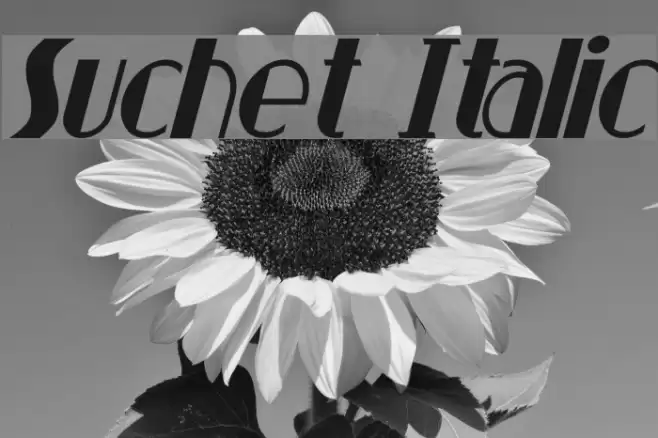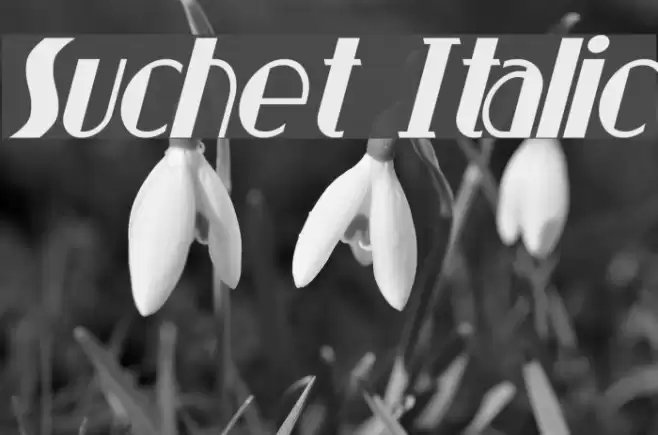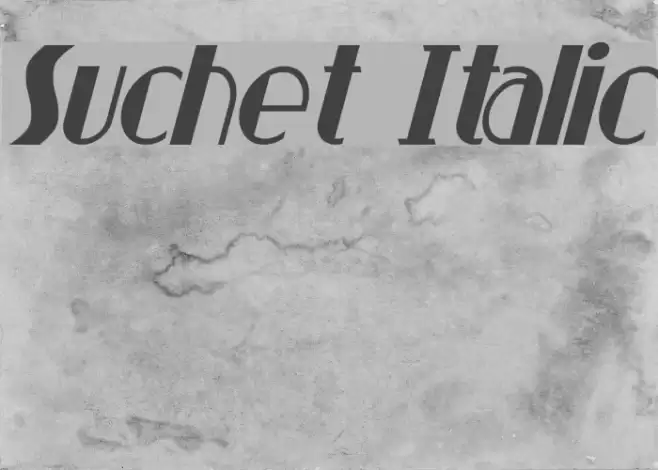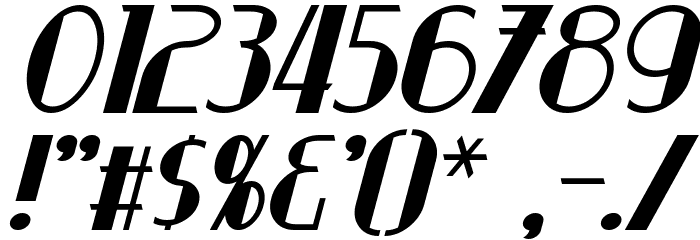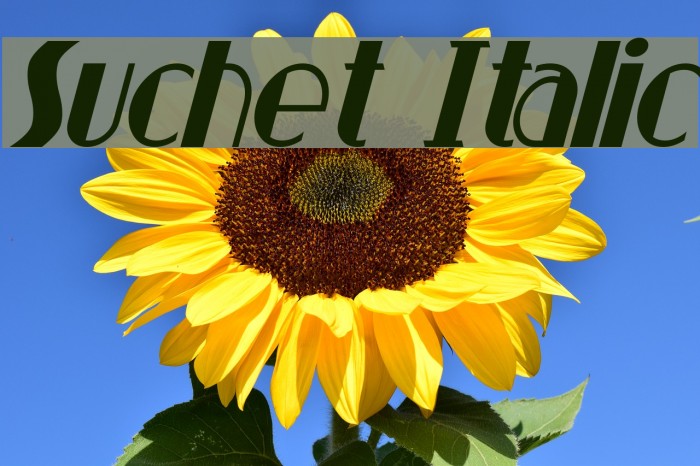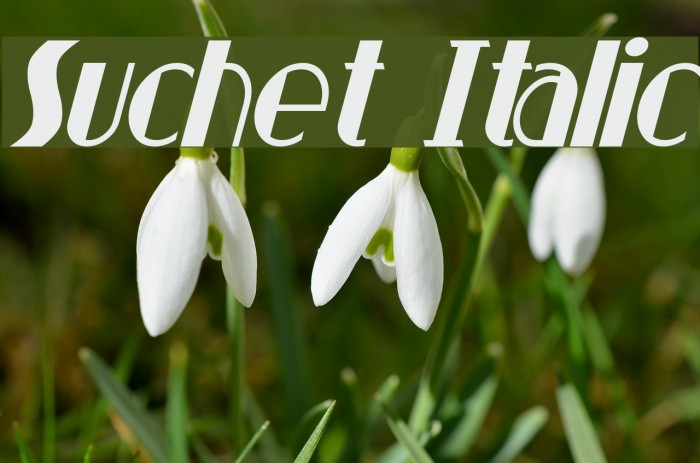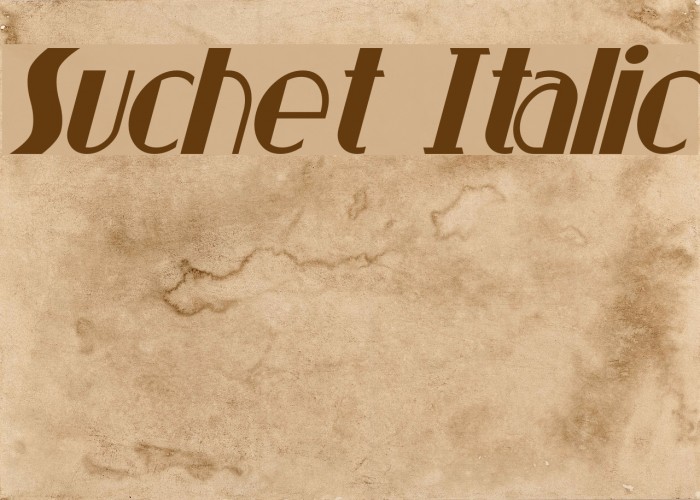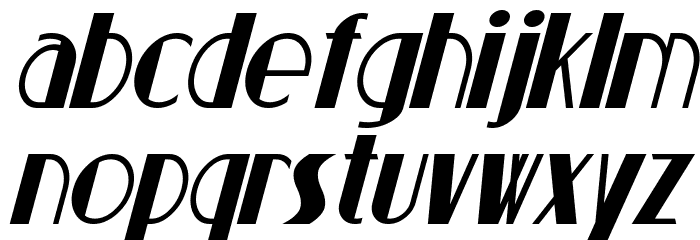
Suchet Italic Font
Suchet Italic Description
This font features a dynamic and elegant italic style with a distinct slant, giving it a sense of motion and sophistication. The characters are elongated with a moderate contrast between thick and thin strokes, enhancing its stylish appearance. The uppercase letters are bold and commanding, while the lowercase letters maintain a graceful flow. Numbers and special characters are designed to complement the overall aesthetic, ensuring consistency across all text elements. The font's unique flair makes it suitable for creative and expressive design projects.
A dynamic and elegant italic font with a stylish slant and moderate contrast from Uncategorized fonts.
- Proposed Projects: Ideal for branding, fashion magazines, creative posters, and elegant invitations.
- Use Case: Headlines, Logos, Creative projects